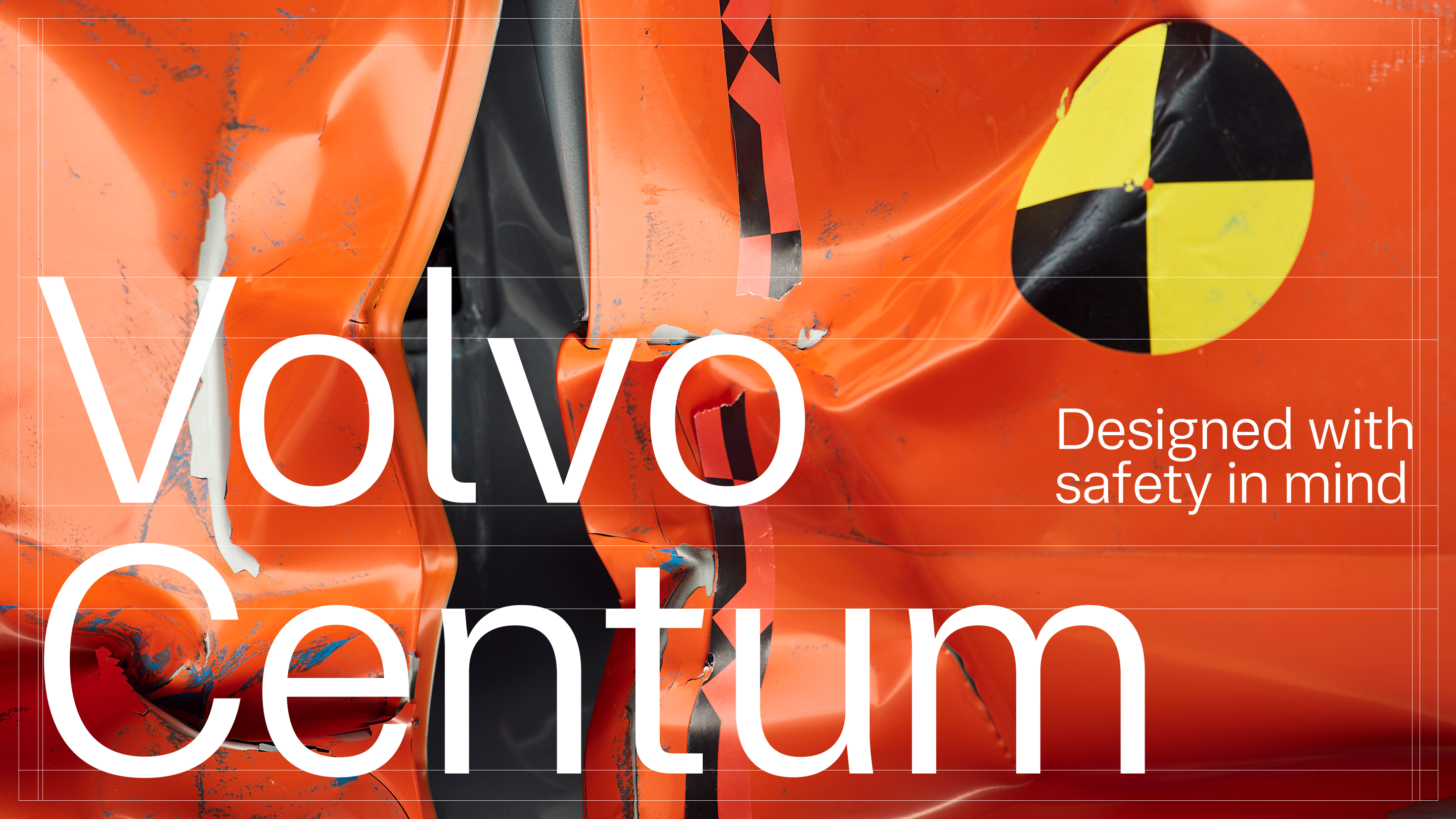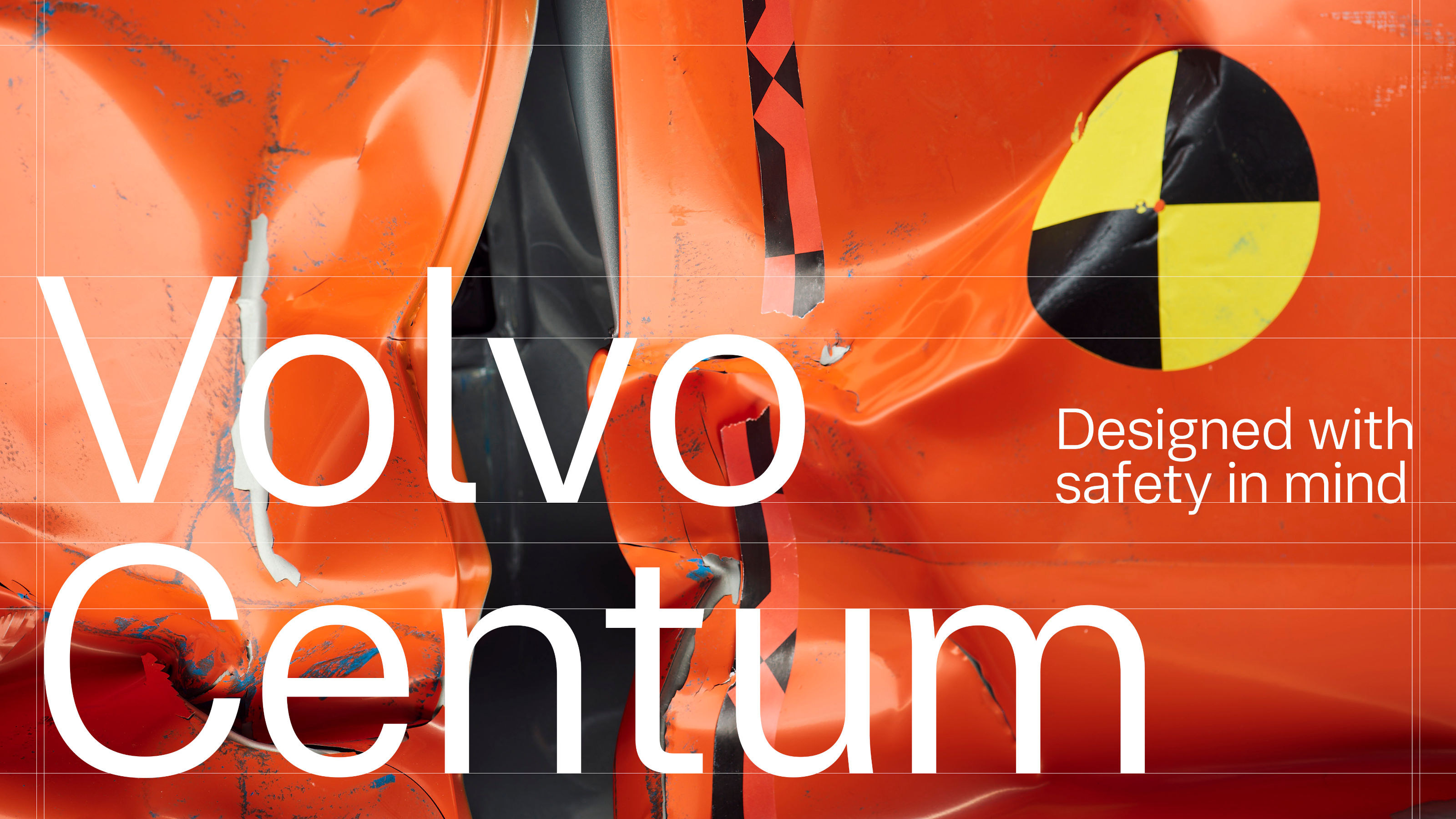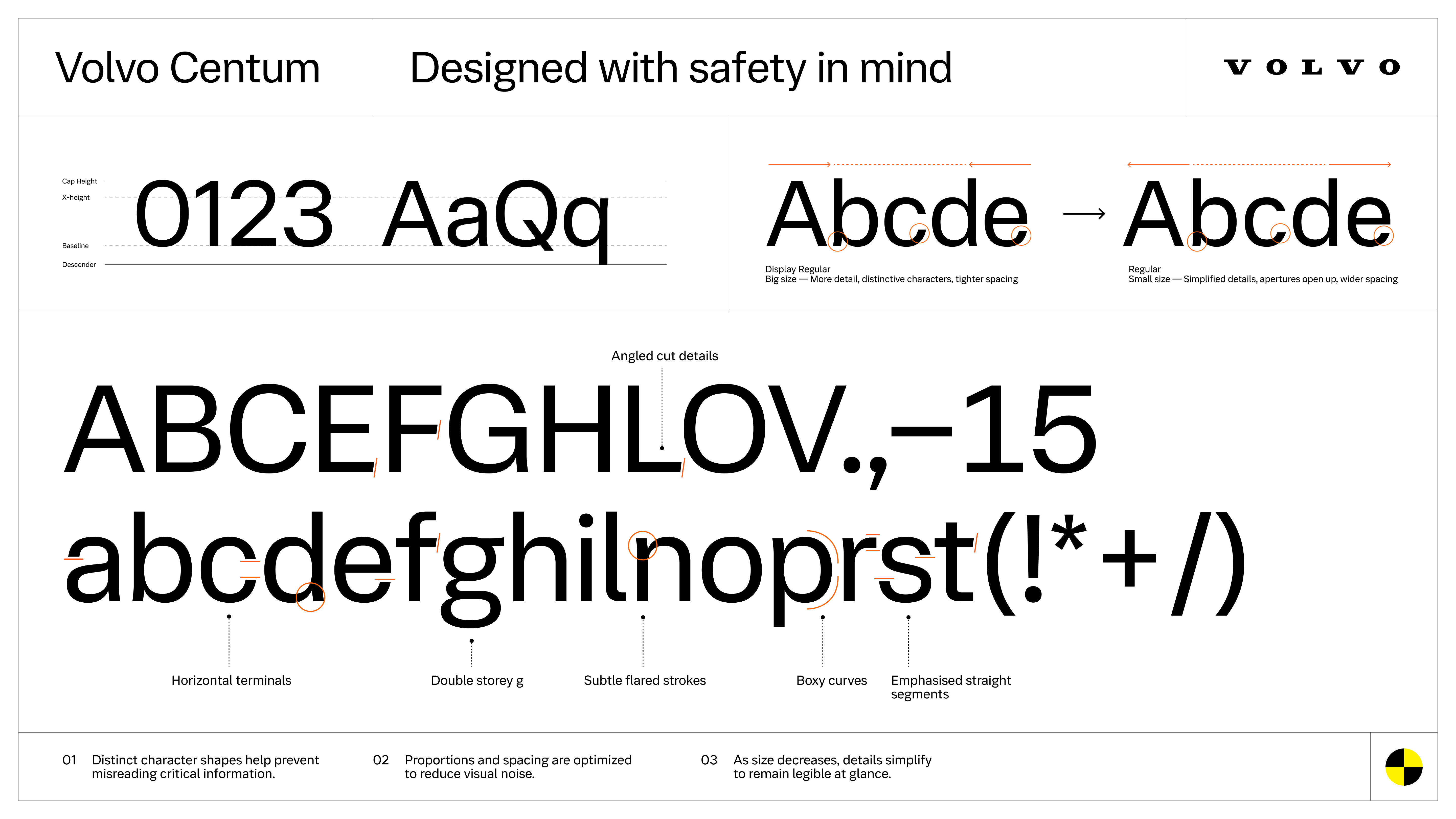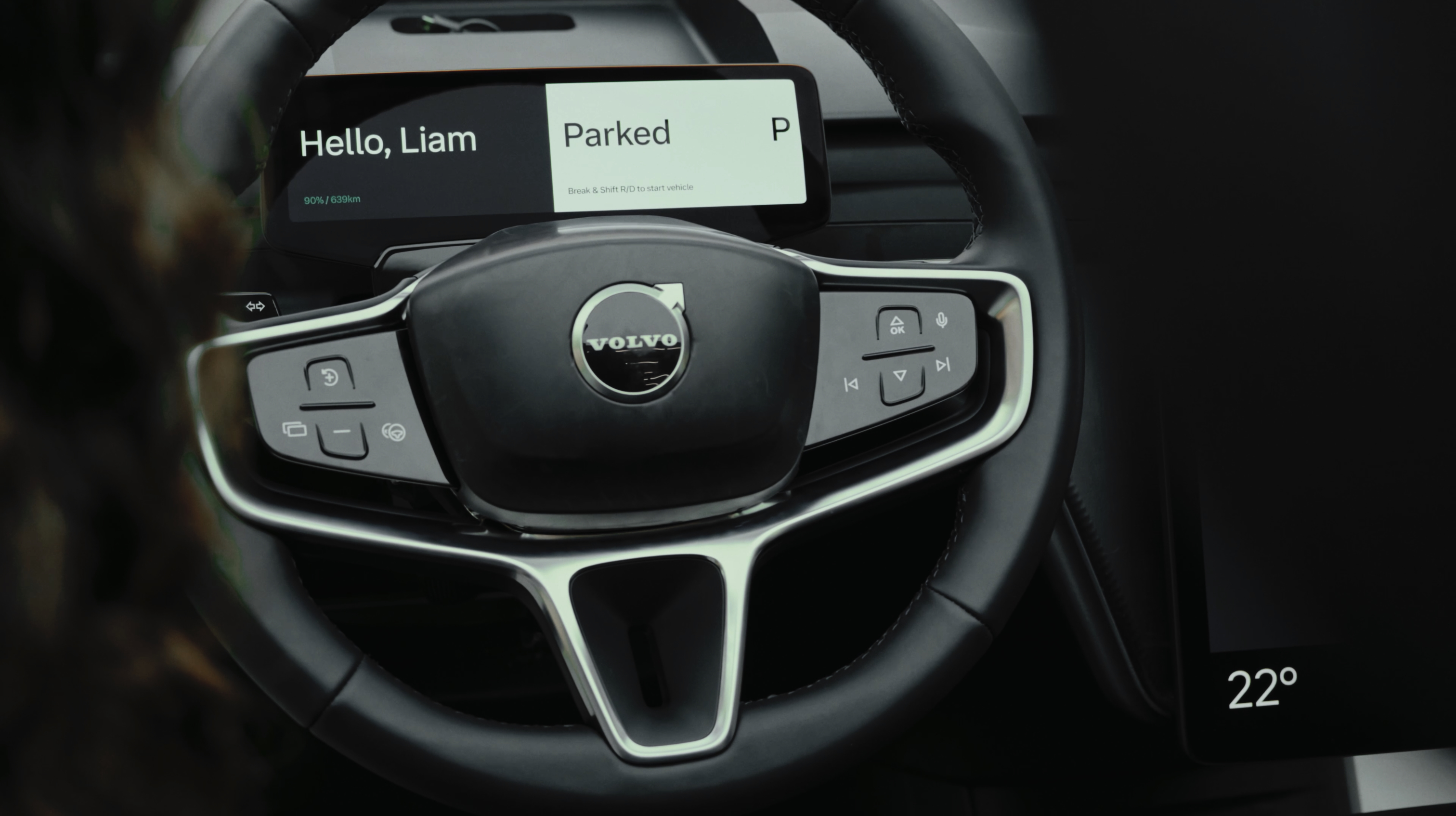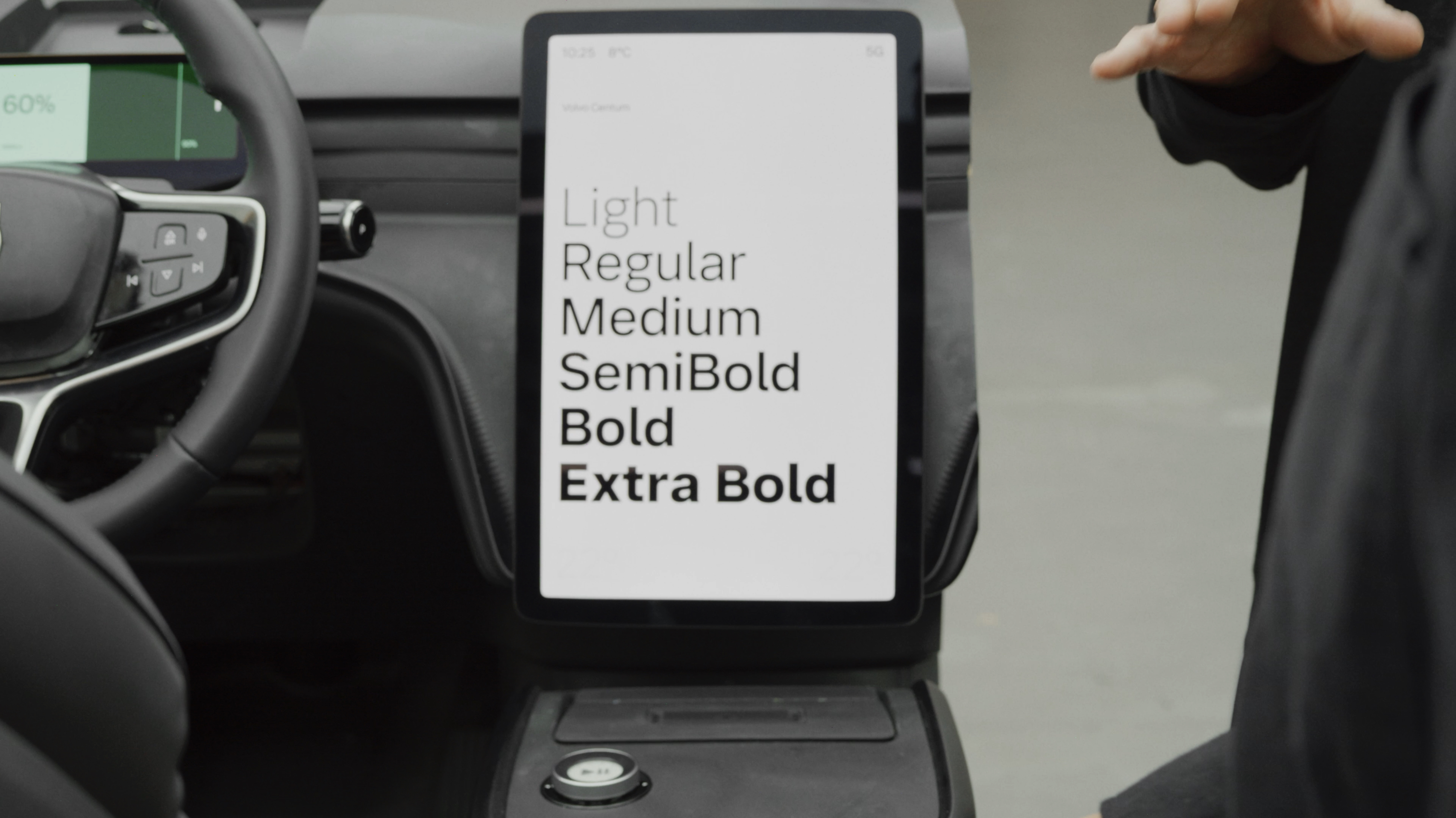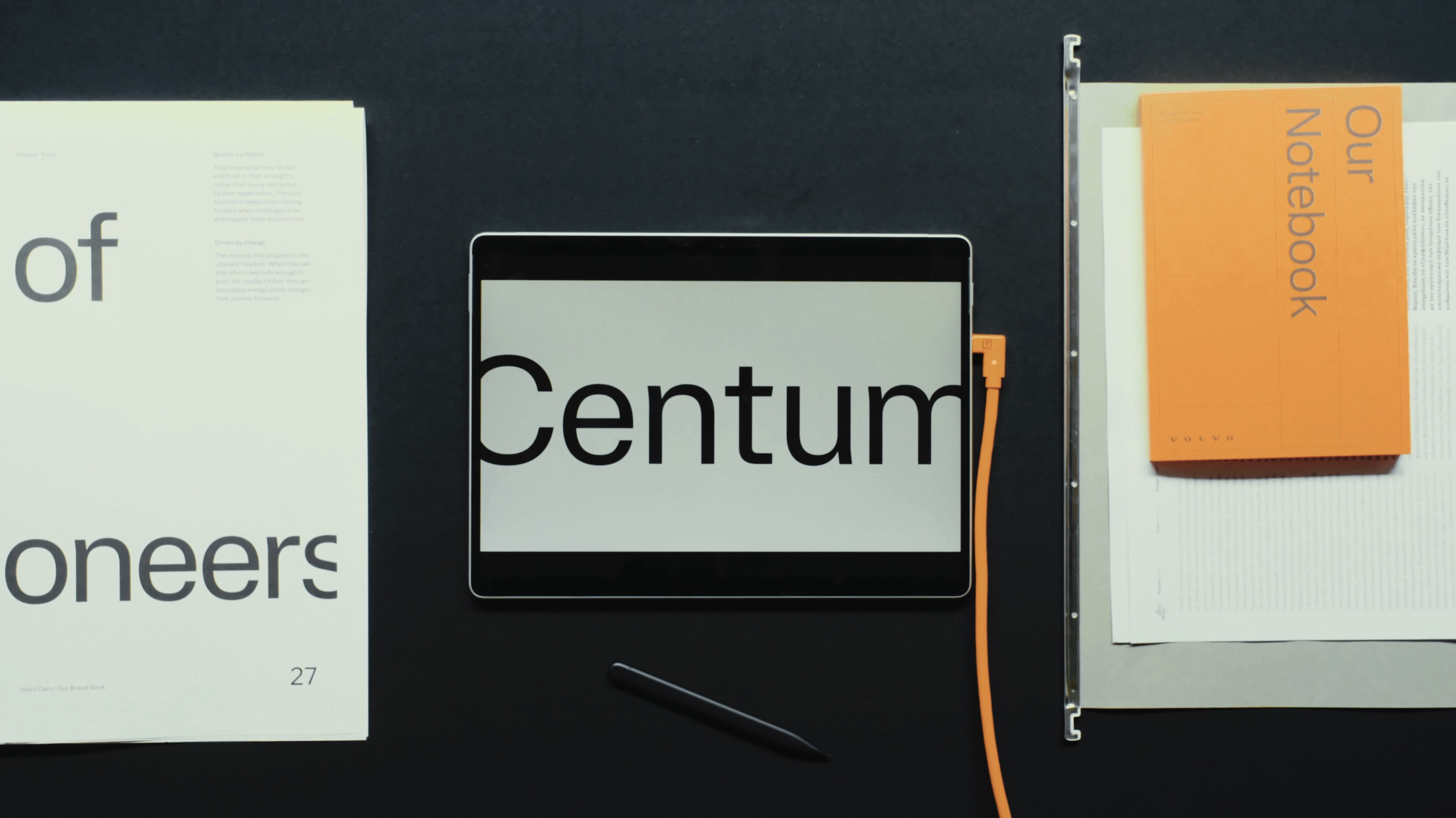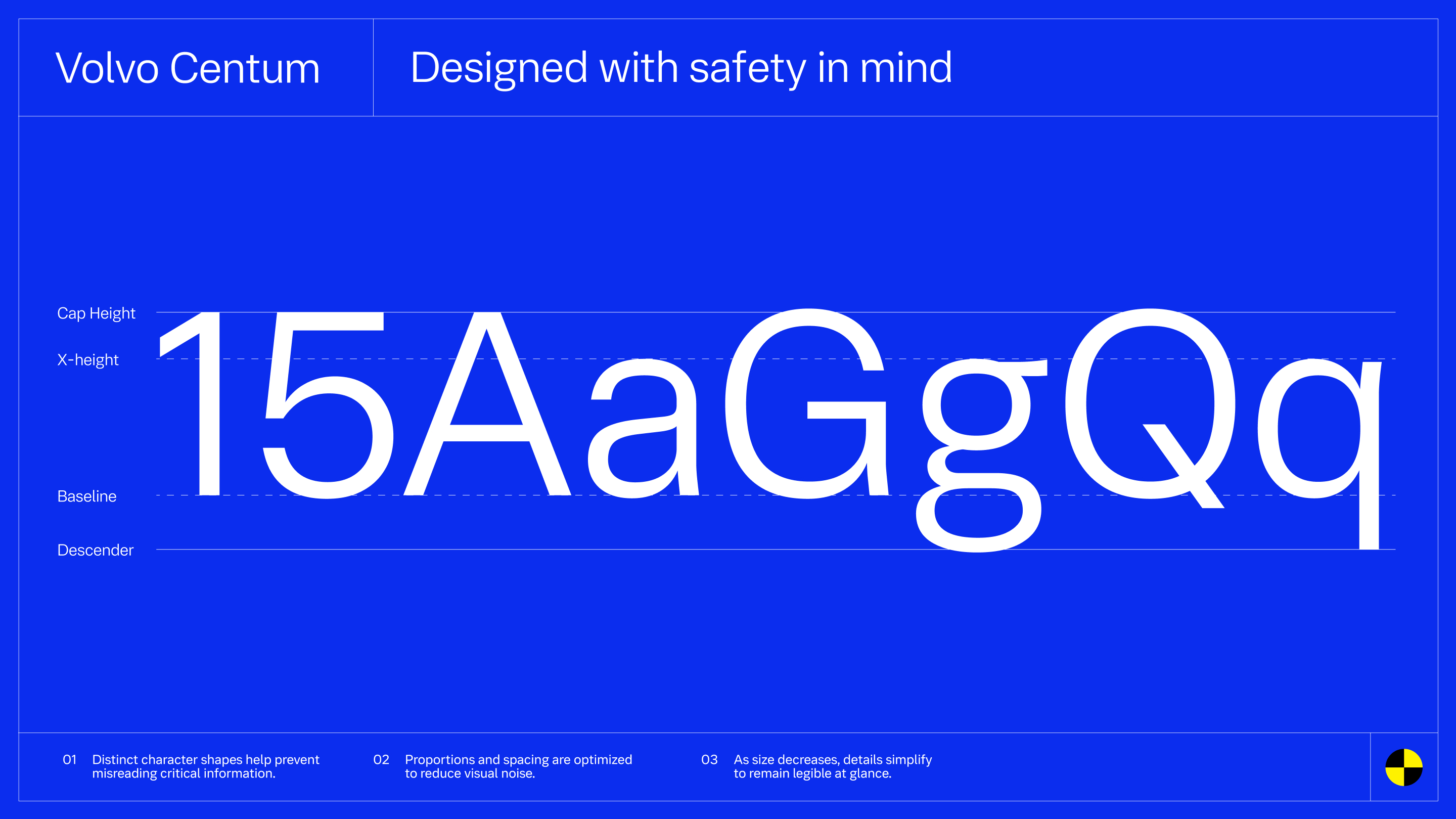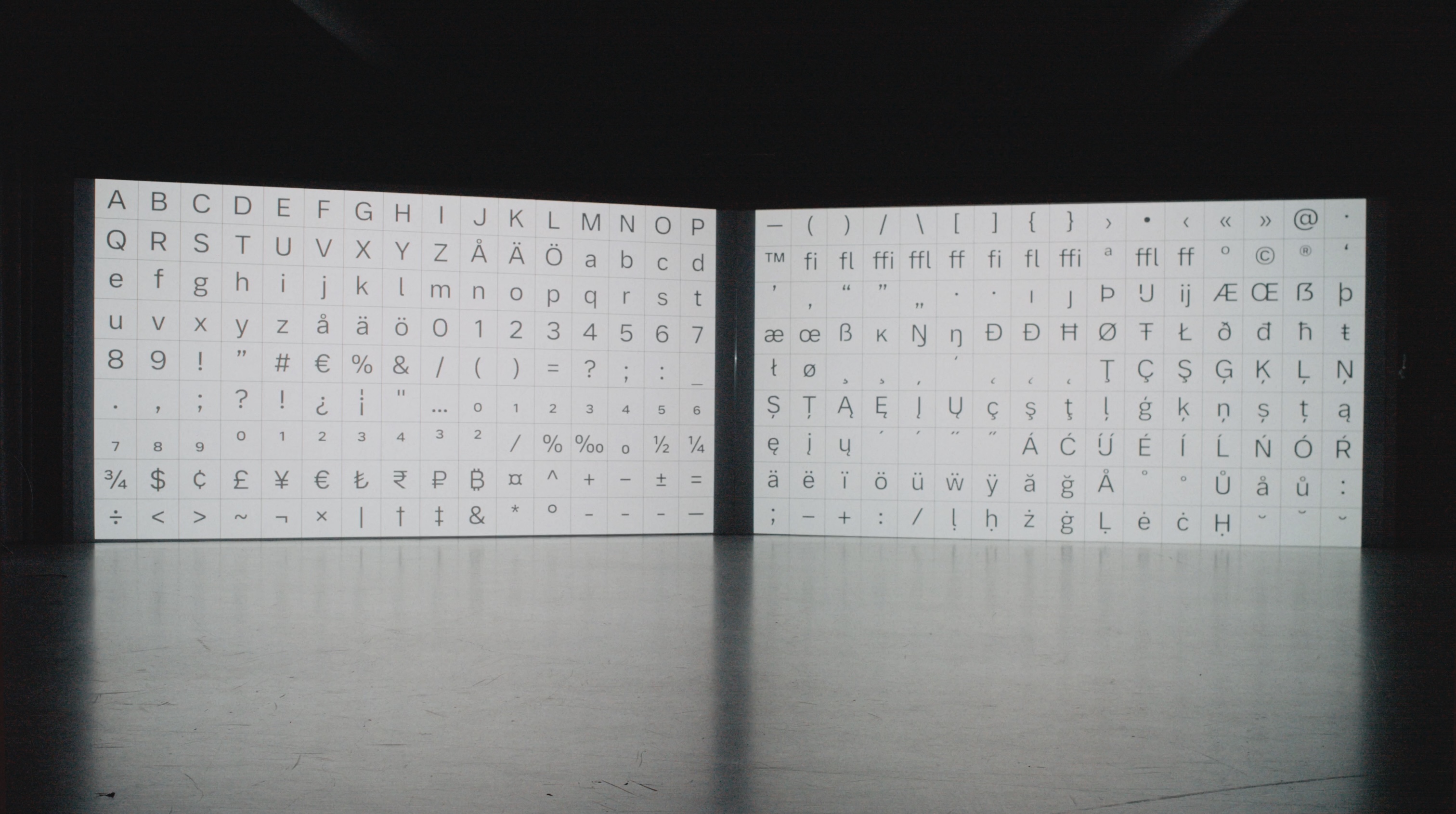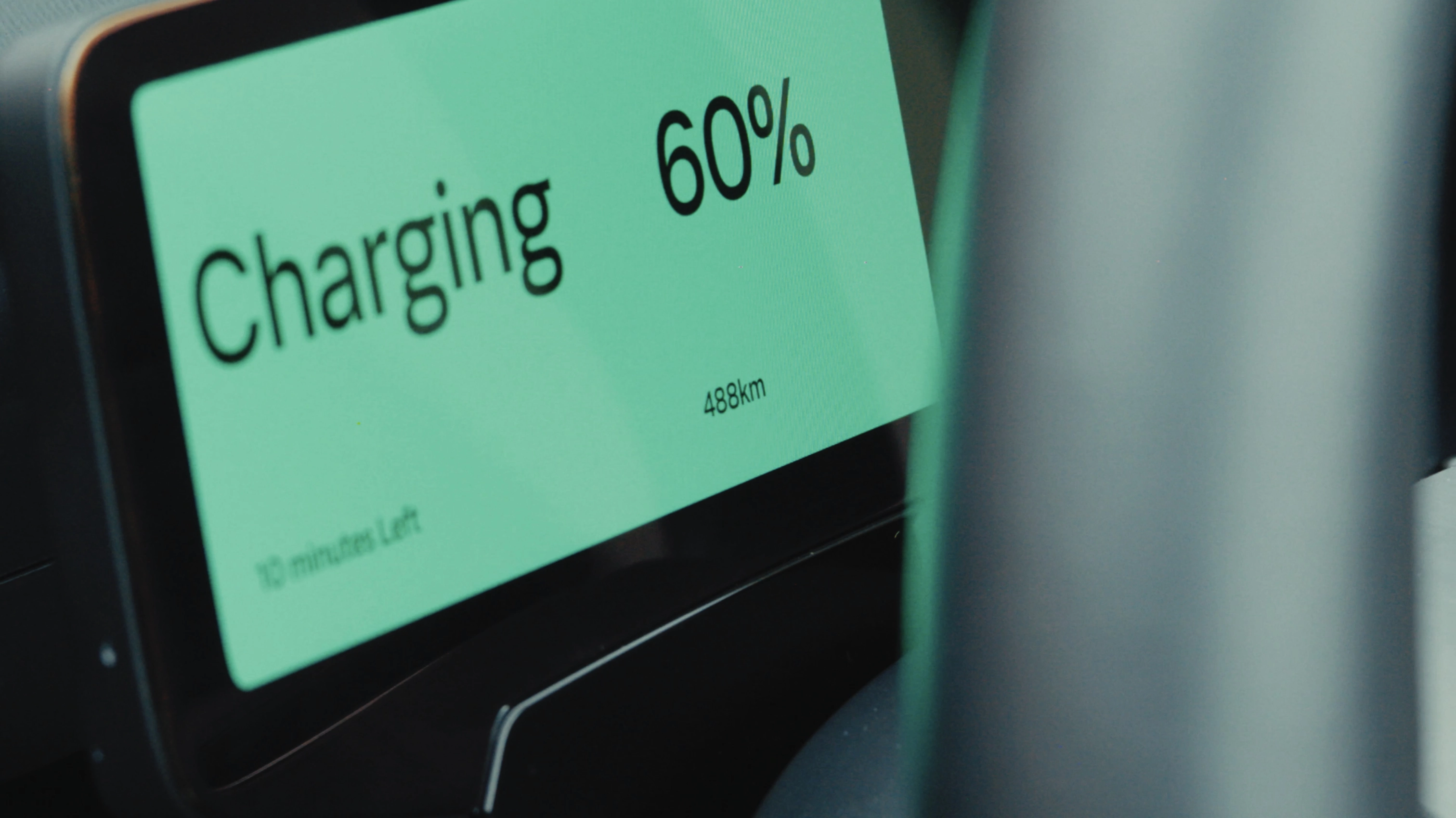
Volvo’s quest for safety has resulted in this new, ultra-legible in-car typeface, Volvo Centum
Dalton Maag designs a new sans serif typeface for the Swedish carmaker, Volvo Centum, building on the brand’s strong safety ethos
Volvo will celebrate its centennial in 2027 and the company is already starting to ramp up the celebrations. Last year saw the opening of the World of Volvo in Gothenburg, a vast circular timber structure designed by Scandinavian design specialists Henning Larsen.
Volvo Centum typeface by Dalton Maag
2026 will see another significant design upheaval, albeit on a much smaller and less obvious scale. The arrival of a new brand typeface, Volvo Centum, manages to combine the company’s obvious love of modernist design with its obsessive pursuit of safety.
The work of London-based type design studio Dalton Maag, the new typeface is designed ‘to improve readability, sharpen attention, and promote a calmer, safety-focused driving experience.’
Dalton Maag's team developing the Volvo Centum typeface
With so much information conveyed via screens – especially capacitive touch screens – legibility and clarity have become an essential component of a modern car’s HMI. Volvo Centum is a sans serif of exceptional clarity and simplicity, designed for what the company calls ‘glance-driven environments.’
Dalton Maag's Volvo Centum typeface in use
The first car to be installed with Volvo Centum is the newly revised XC60 mid-size SUV and its upcoming all-new EX60 electric sibling. Over-the-air updates will then be used to roll out the typeface across millions of other cars.
The newly refreshed Volvo XC60
Inside the XC60, the interface shows Volvo's close relationship with Google
If there’s been one criticism of Volvo in recent years, it’s that the company has off-loaded huge amounts of information and driver input onto a central touchscreen. Volvo was ahead of the curve in adopting Google’s Android in 2017 and were a key partner in the development of Android Auto. How this system dovetails with the new typeface remains to be seen.
Volvo Centum typeface by Dalton Maag
Dalton Maag faced a formidable challenge in ensuring Volvo Centum worked across the brand’s many platforms, as well as being legible in all driving conditions and in 35 different languages, including Chinese, Arabic, Japanese, and Korean.
By creating a set of distinct character shapes, the studio has striven to avoid any unintentional misreading, with clear spacing and a scaling system that simplifies detailed elements to retain legibility.
Volvo Centum typeface by Dalton Maag
The studio, founded in 1991 by Swiss typeface designer Bruno Maag, has worked across a number of industries, including media (BBC, Netflix, USA Today), transportation (Ducati and Korean Air) and technology (Vodafone and Wix), amongst others.
Volvo Centum typeface by Dalton Maag